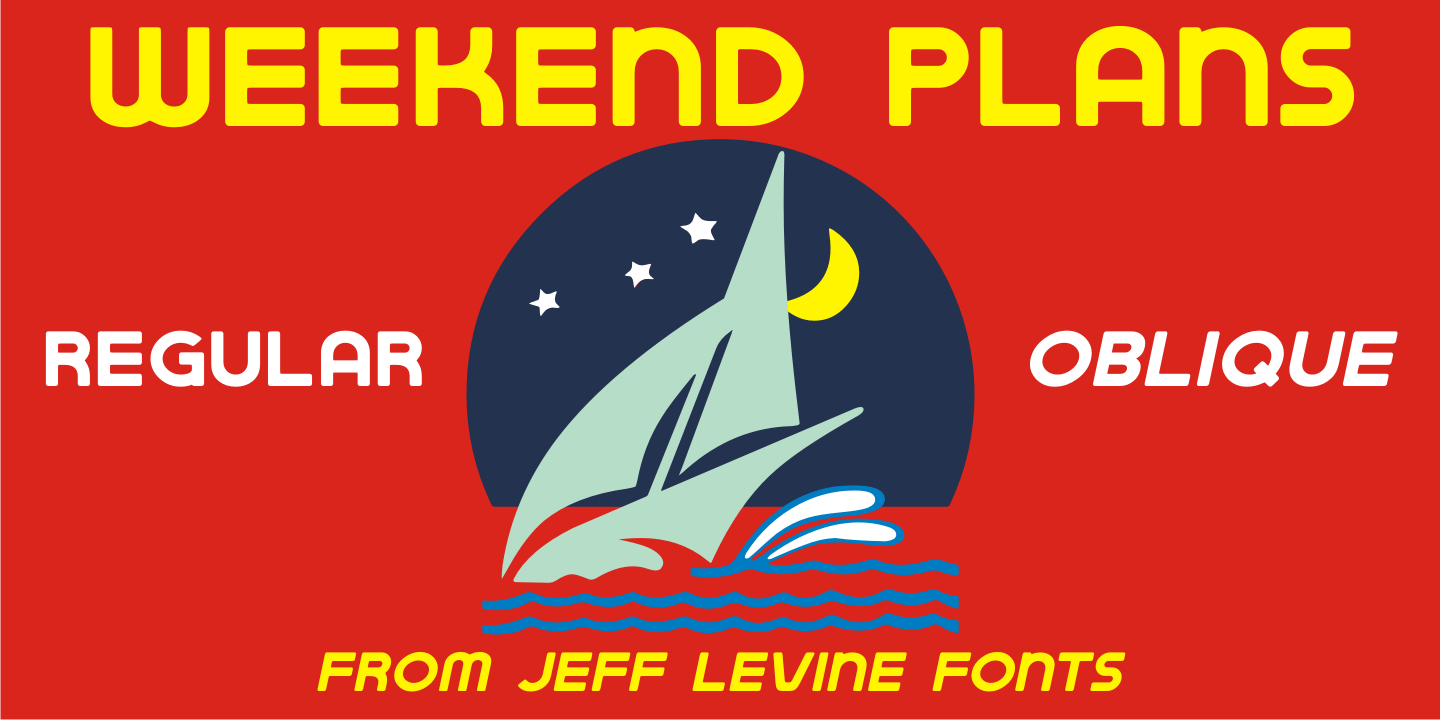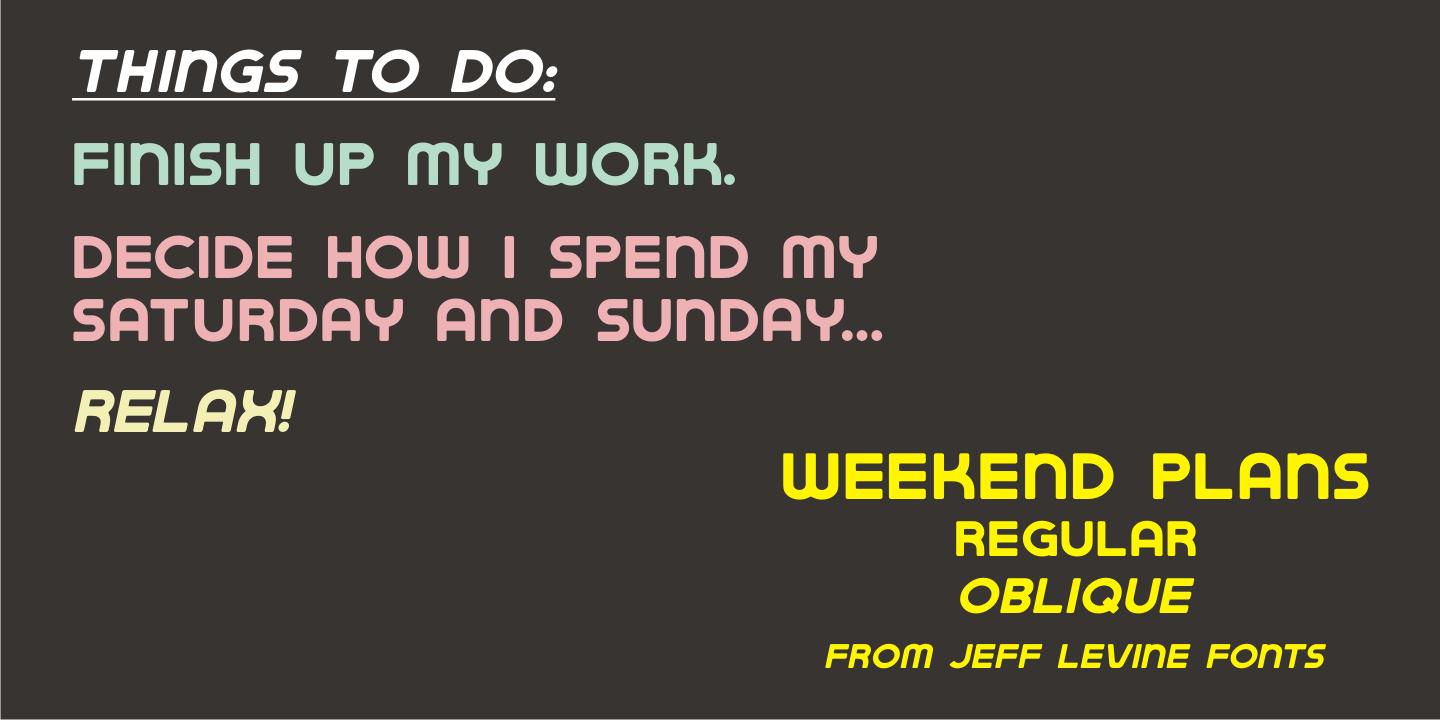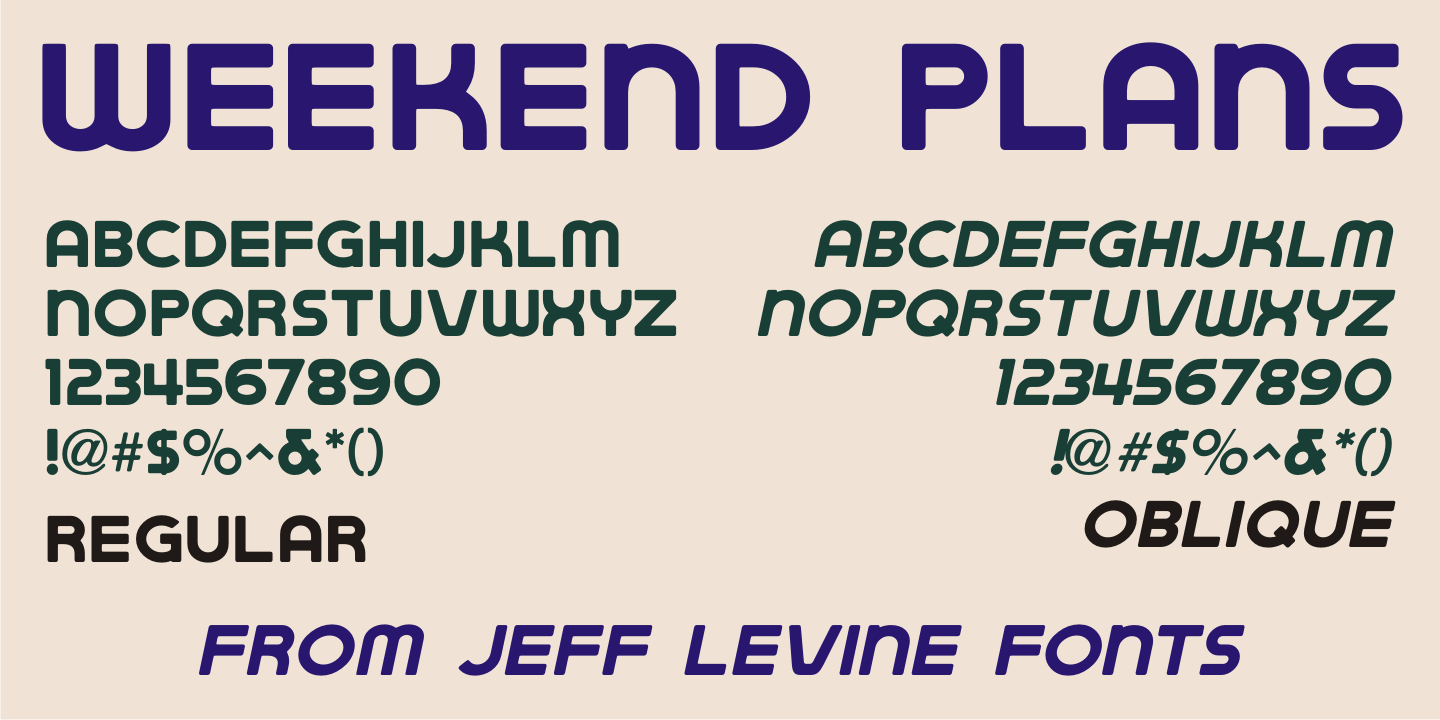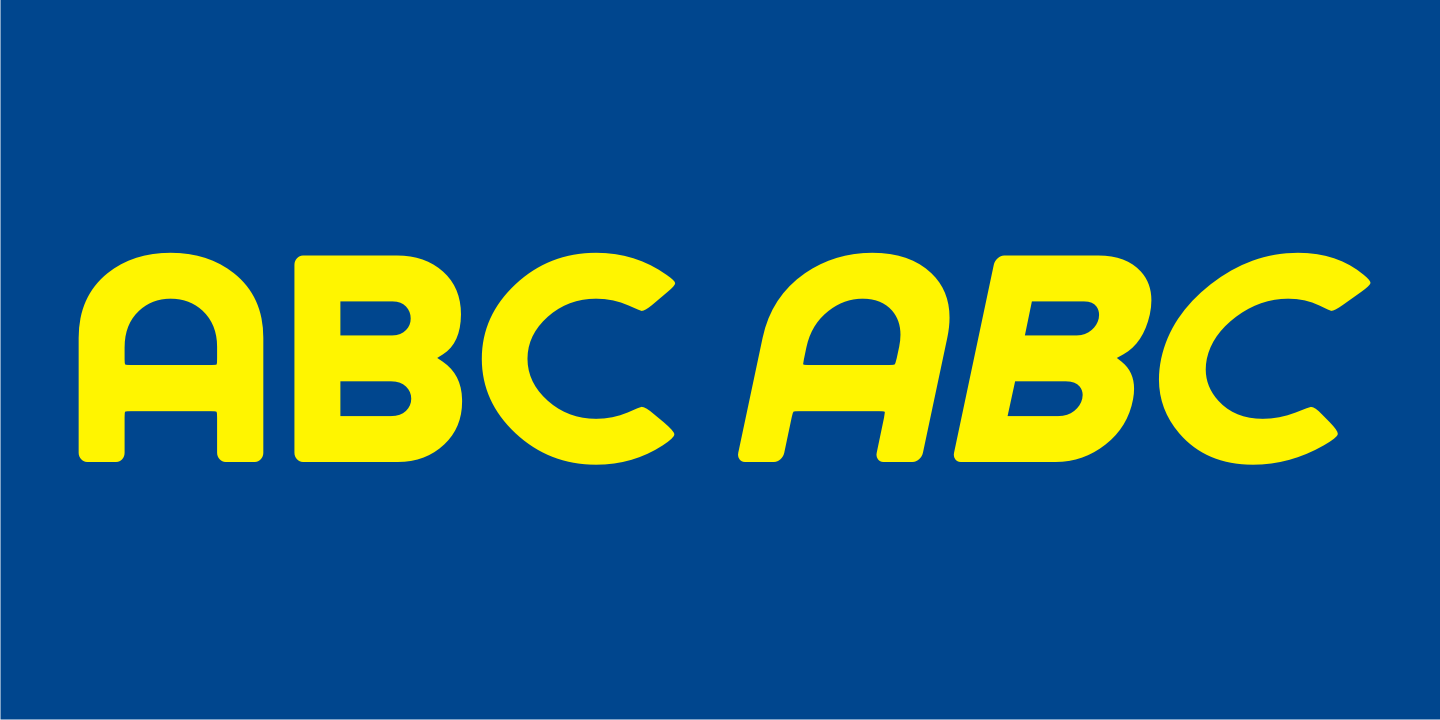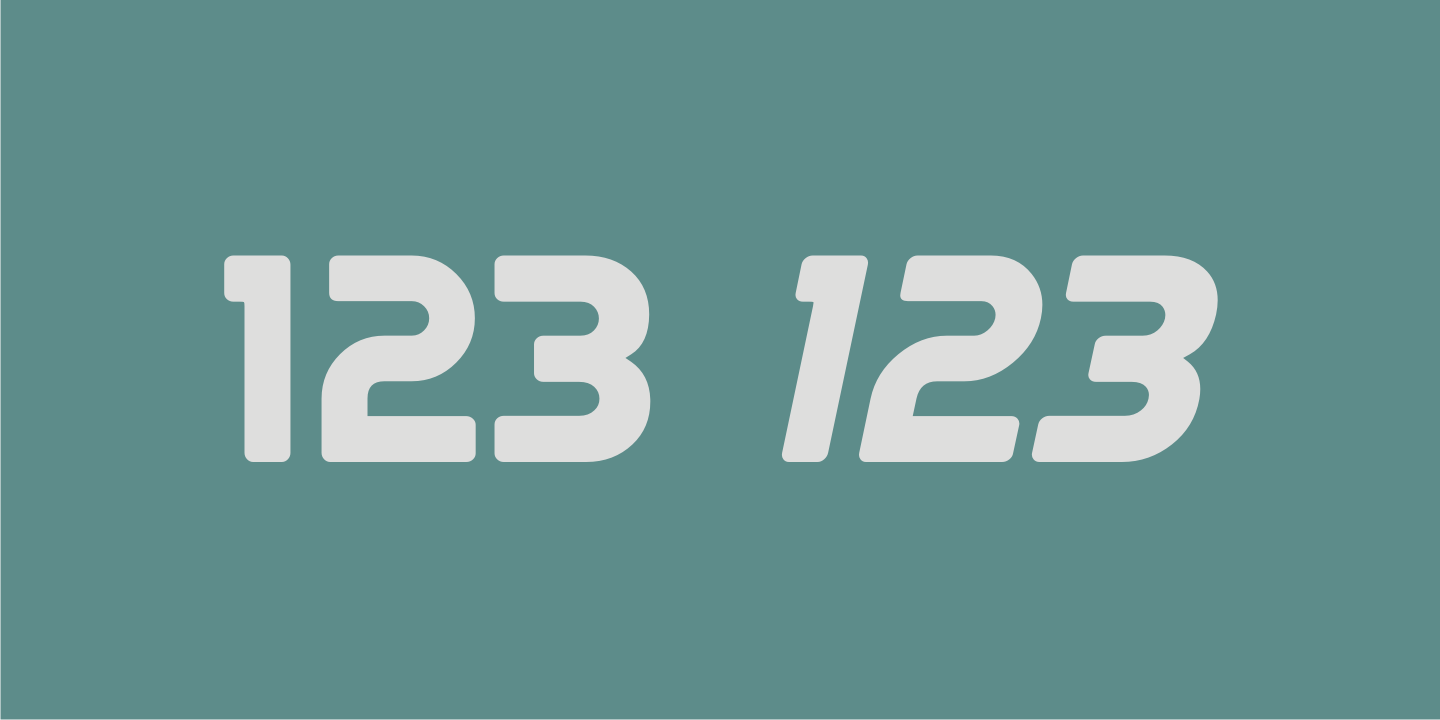
Weekend Plans
A piece of vintage British sheet music from 1941 entitled 'That Lovely Week-End' featured the song's name in a bold Art Deco sans serif with rounded edges.
This lettering design is now the digital type face Weekend Plans JNL, which is available in both regular and oblique versions.